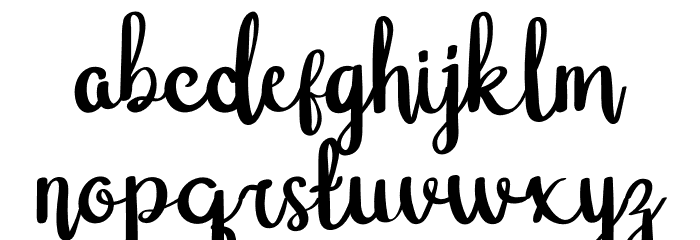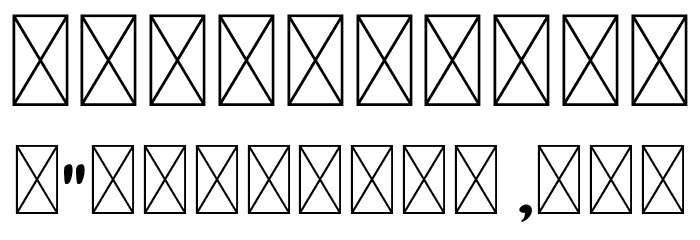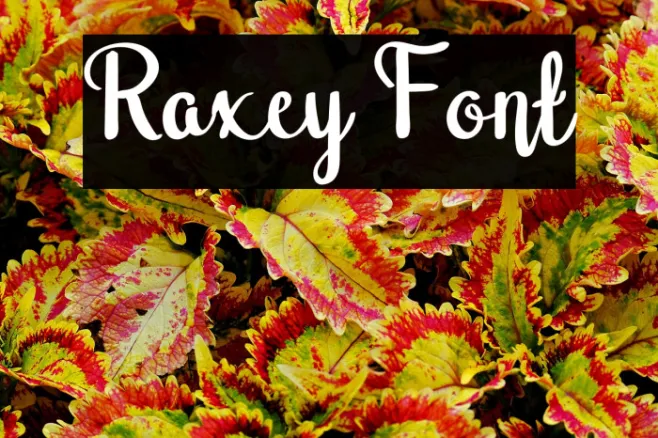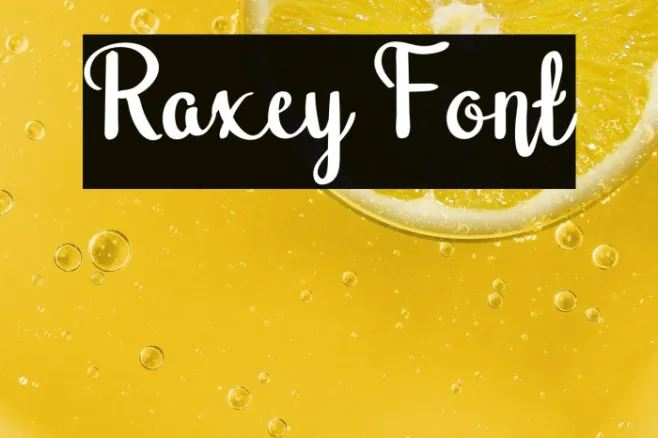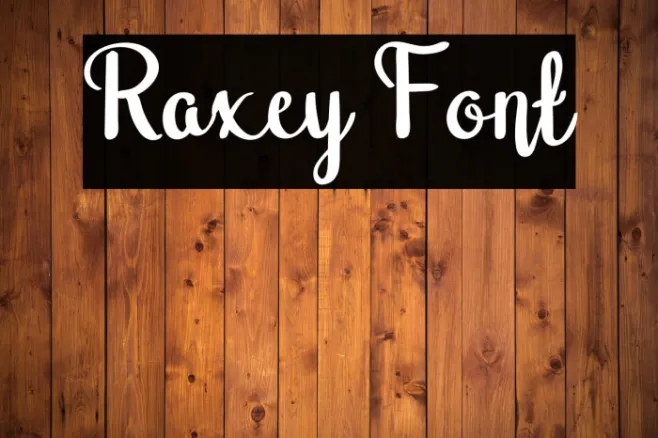
Raxey Font
This font features a playful and dynamic script style with a handwritten feel. The uppercase letters are bold and slightly condensed, with a whimsical flair that adds character to each letterform. The lowercase letters maintain a consistent flow, with smooth curves and loops that enhance its casual and friendly appearance. The font's overall design is lively and expressive, making it ideal for creative projects. The absence of numbers and special characters suggests a focus on lettering rather than comprehensive typography.
A playful and dynamic script font with a handwritten feel.
- Font: Raxey
- Proposed Projects: Ideal for greeting cards, invitations, branding, and social media graphics.
- Category: Script
- Use Case: Logos, Headlines